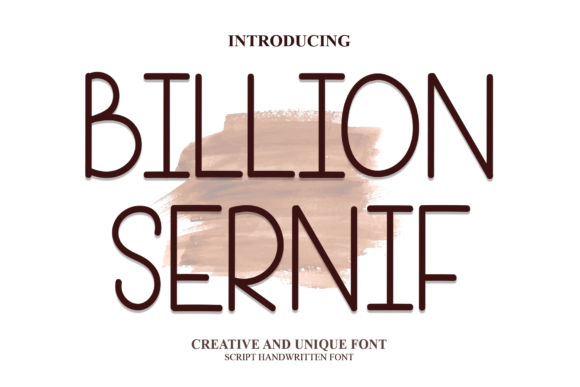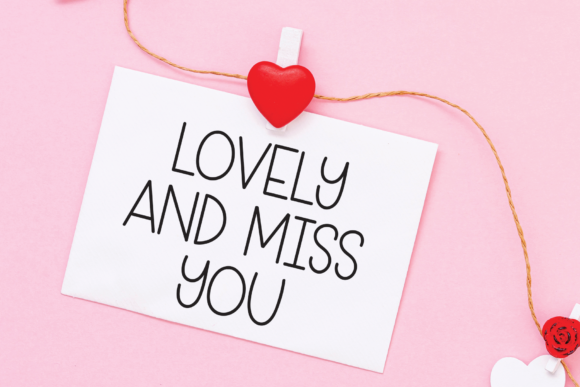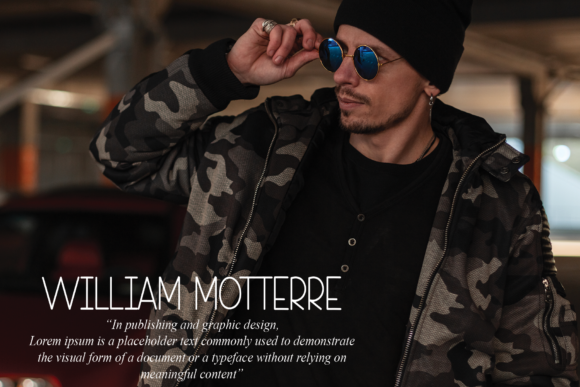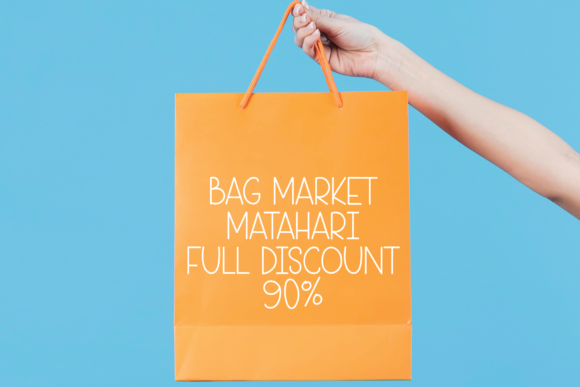
Billion Sernif Font
About Billion Sernif Font
Billion Sernif is a slim and simple handwritten font that was crafted with great care to produce the expected results. This font can be used to write various kinds of products according to their individual needs.